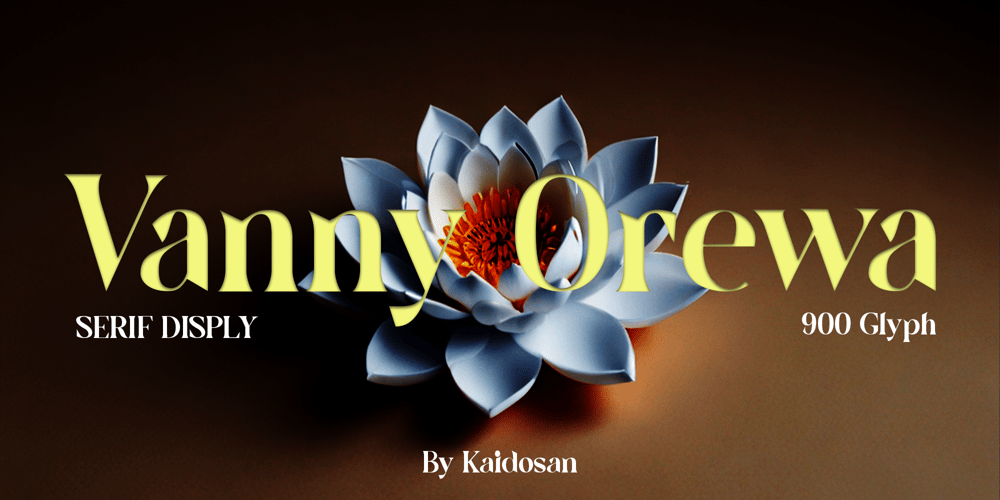
Vanny Orewa Font Family was designed by Muhammad Ansari and published by Kaidosan. Vanny Orewa contains 1 styles and family package options. Vanny Orewa is a cool display font with 900 glyphs in it, consisting of a modern and unique style with elegant alternates and leagues. Fall in love with its incredibly versatile style and use it to create beautiful wedding invitations, beautiful stationary art, eye-catching social media posts, and more